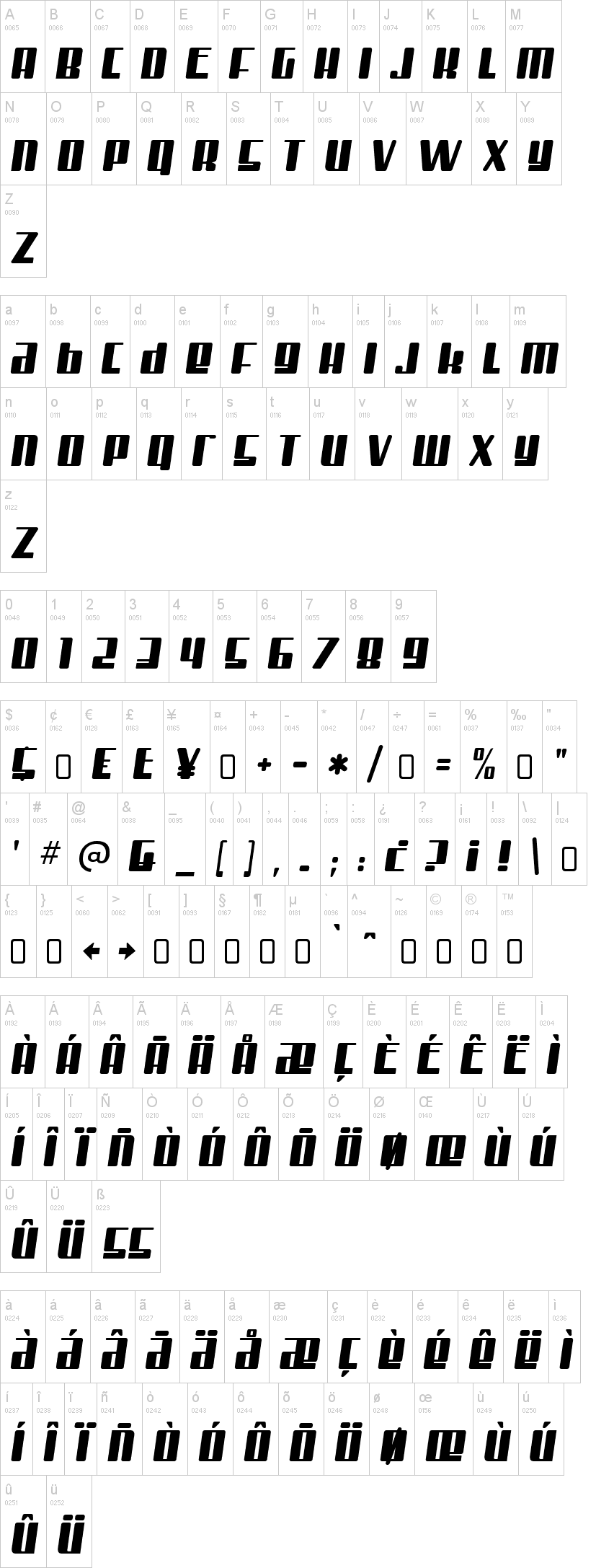
Шрифт Mister Firley
Mister Firley is an industrialized style headline yeller. Don't forget to read the files inside the zip for details. Updated in 2012.